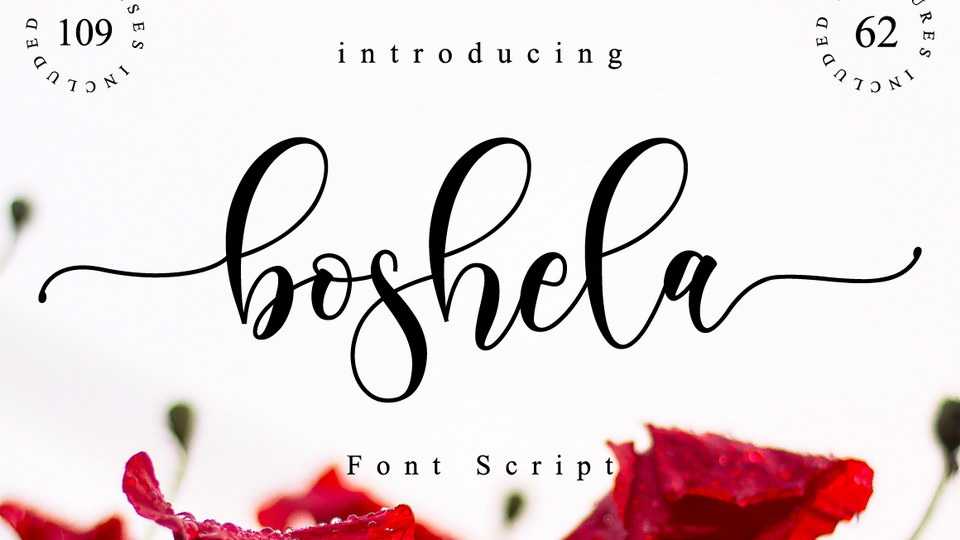
Download Boshela font, a beautiful calligraphy script with a classy, elegant, and modern look. Boshela font can be used for logos, branding, invitations, stationary, wedding designs, social media posts, and every other design which needs a handwritten touch.
Designer: Nissa Studio